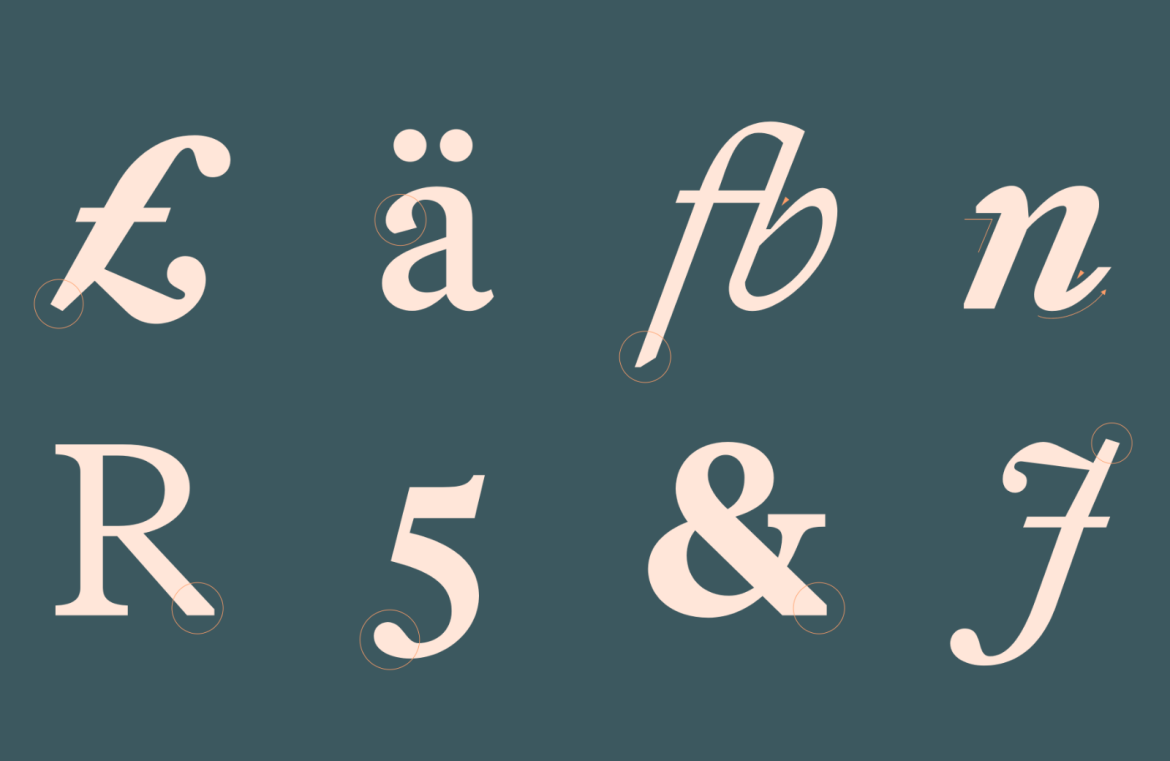
Elegant Plantijn
Elegant Plantijn is an Old Style serif font that exudes elegance. It’s restrained yet effective at smaller sizes, while its larger forms reveal charming curves. Drawing its name from a historical printmaker, this font family offers flexibility and timelessness for any textual artistry.
The New Konrad
The New Konrad is a modern tribute to the very first roman typefaces of the 15th century, blending gothic tones within its characters, reconceived for today’s digital demands. This eye-catching font stands proudly unique in any design setting.
Blocky Gismo
Blocky Gismo offers a bold sans-serif quartet, featuring variations from rounded to rectangular shapes. Its designs boast slim connectors and sharply terminated line endings, making Gismo a go-to for logo designers seeking a distinctive flair.
Brutalist Solfa
Brutalist Solfa steps in as a condensed sans-serif that’s made for making a statement at large scales. Its bold design captures attention and reflects rugged confidence, perfect for designs tapping into the brutalist aesthetic.
Upright Anona
Upright Anona shuns the conventional tilt of italics yet maintains their dynamic flow. Excelling on digital screens due to its vertical emphasis, this sans-serif injects a handwritten touch to any digital space.
Whimsical Wander Cloud
Whimsical Wander Cloud is a typeface that captures the imagination, yet challenges legibility. Best used as a decorative element in your design, its distinctive character pairing can create a captivating visual when used thoughtfully.
Dual Nature Paramount
Dual Nature Paramount is a duality of styles with the regular weight offering a high utility and the Neo variant drenched in personality, inspired by NASA’s iconic logotype. Ideal for branding, they can be used together or solo to great effect.
Art Deco Juneau
Art Deco Juneau showcases the meticulous craftsmanship of architectural type design. Custom-built by Tour de Force for the Stalwart Group and echoing the Art Deco tradition adorning their Wisconsin headquarters, Juneau Deco is gracefully offered for free with credit given.
Retro-flavored Kayshi Sans
Retro-flavored Kayshi Sans swirls with elegance, its curves creating a wave-like text flow. The blend of high contrast and striking terminals lends it a nostalgic touch.
Swiss-inspired South East
Swiss-inspired South East is a font that excels in versatility, with an extensive style range and a design influenced by the distinctive lines of the Korean script, yet it brings a touch of Swiss design sensibility.
Versatile Calleo
Versatile Calleo offers a binary set of fonts with the legible sans, complemented by the more avant-garde Flux variant. This pairing is essential for screen readability and adds a splash of innovation to headers and titles.
Classical Artemesia
Classical Artemesia stands out with its ribbon-like strokes and calligraphic grace, enriched with a classical Greek touch to its character design.
Sophisticated Lucius
Sophisticated Lucius evolved from a serif foundation to present a compelling sans family. Retaining the soul of its origins, it has morphed into a strong and almost daunting font, perfect for logos and abbreviated text.
Dynamic Isard
Dynamic Isard is a no-nonsense sans-serif with a collection of 14 styles that boast a comfortable vertical rhythm and a slight angularity that shines in generous blocks of text.
Geometric Garibaldi
Geometric Garibaldi presents a sans-serif with condensed proportions and a pulse of rhythm with geometric construction. Its broad weight spectrum grants ample flexibility, making it an assertive option for logos and bold statements.